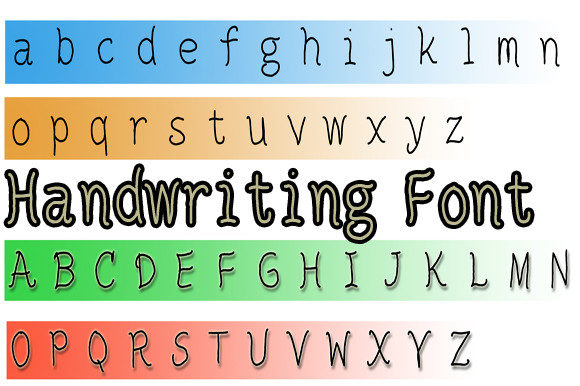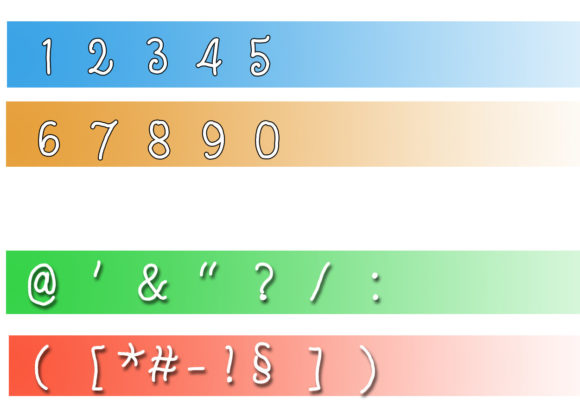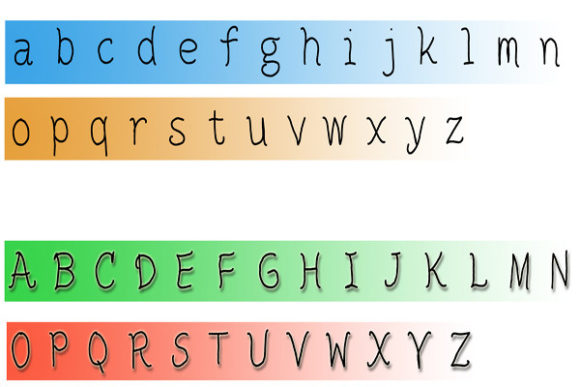
Simple Handwriting Font
About Simple Handwriting Font
Simple Handwriting is a Beautiful and cursive handwritten font. Fall in love with its authentic feel and use it to create gorgeous invitations, beautiful stationary art, eye-catching social media posts, and cute greeting cards.